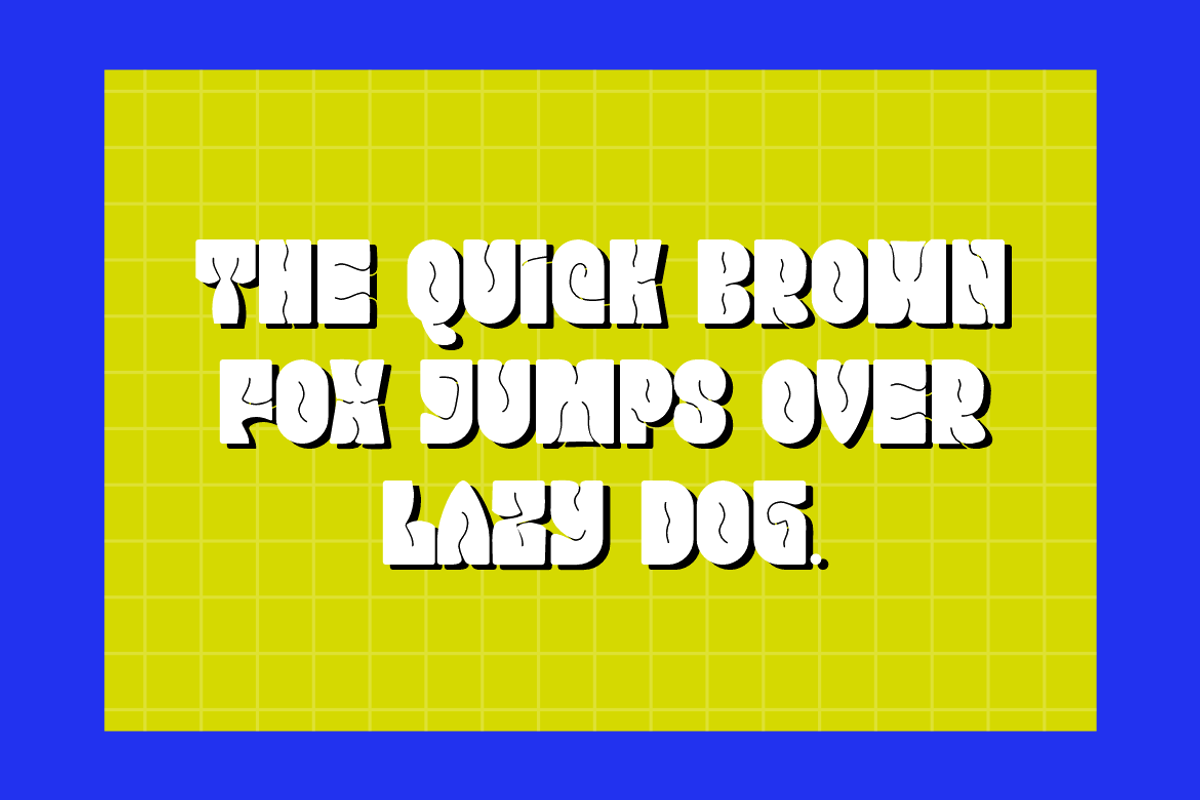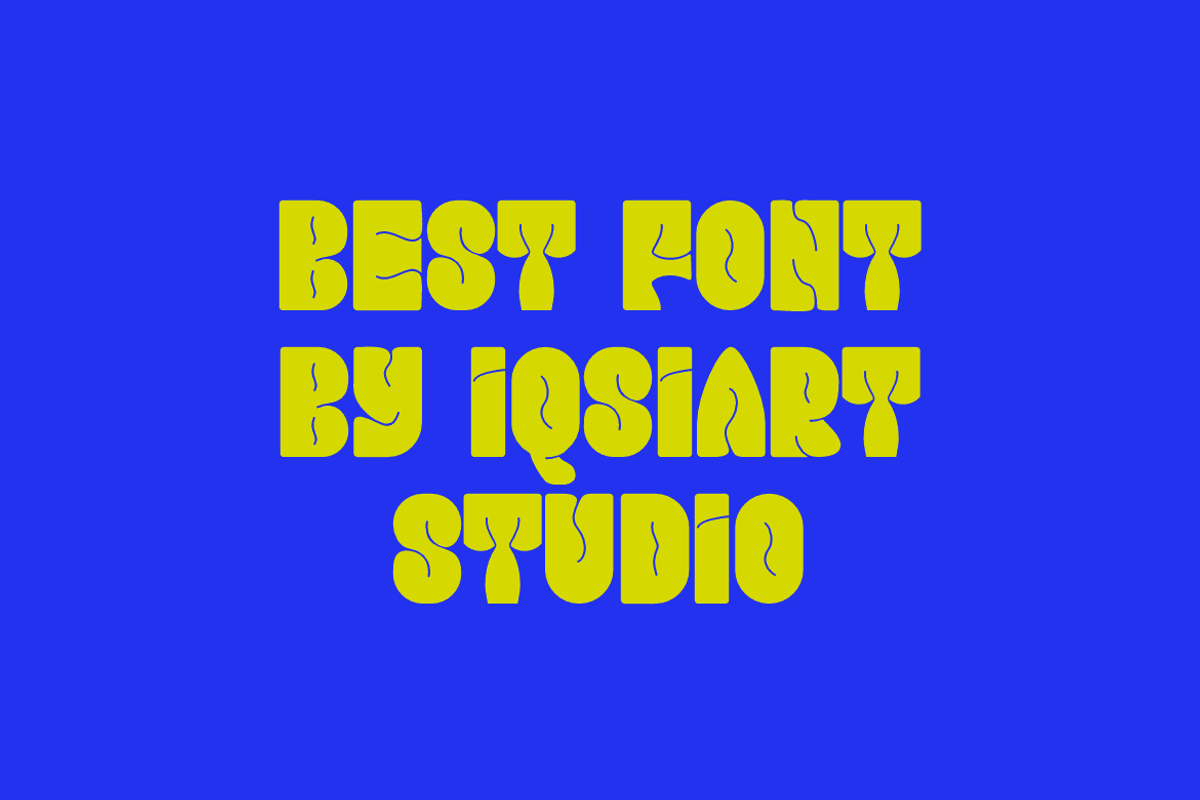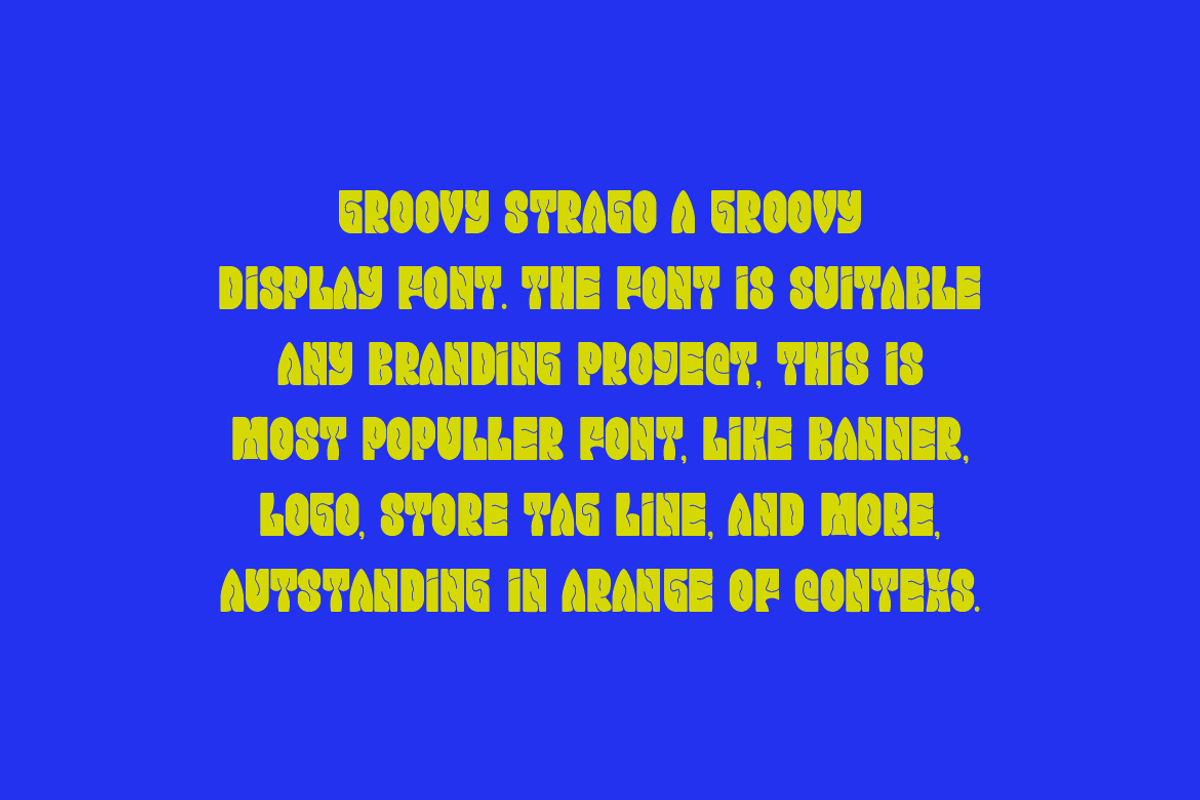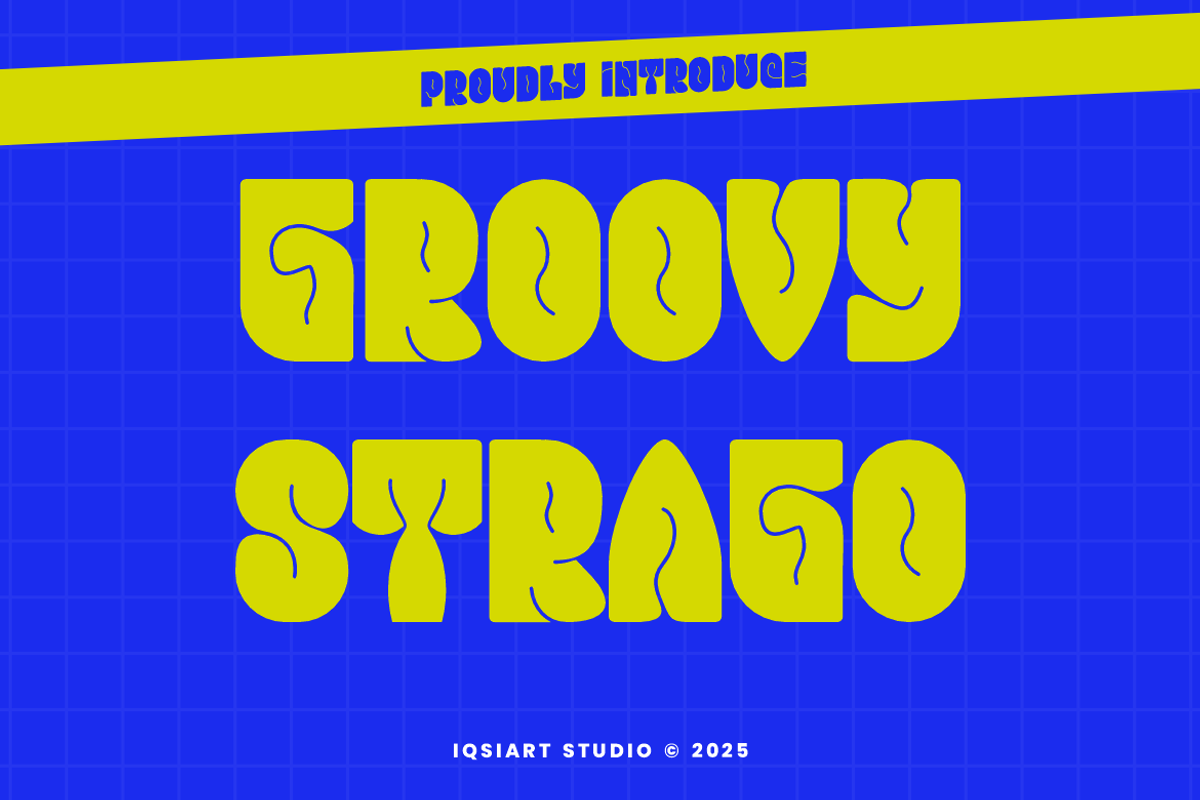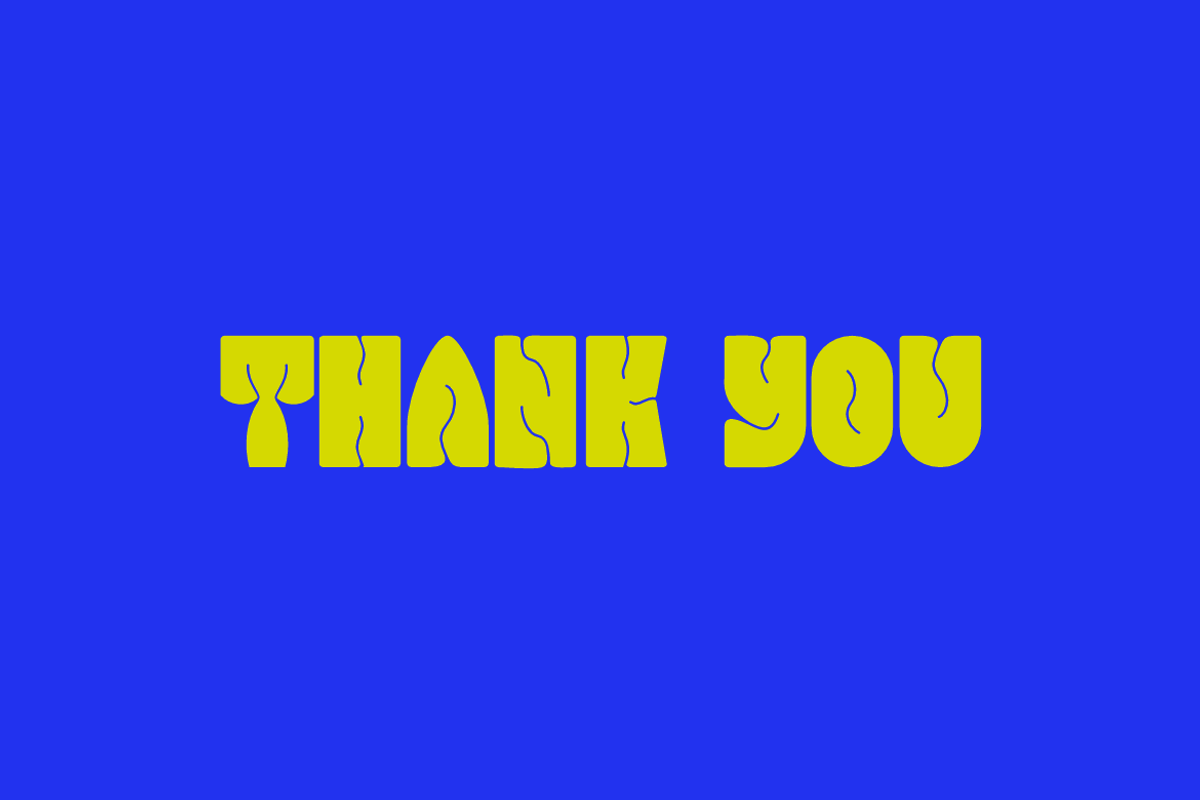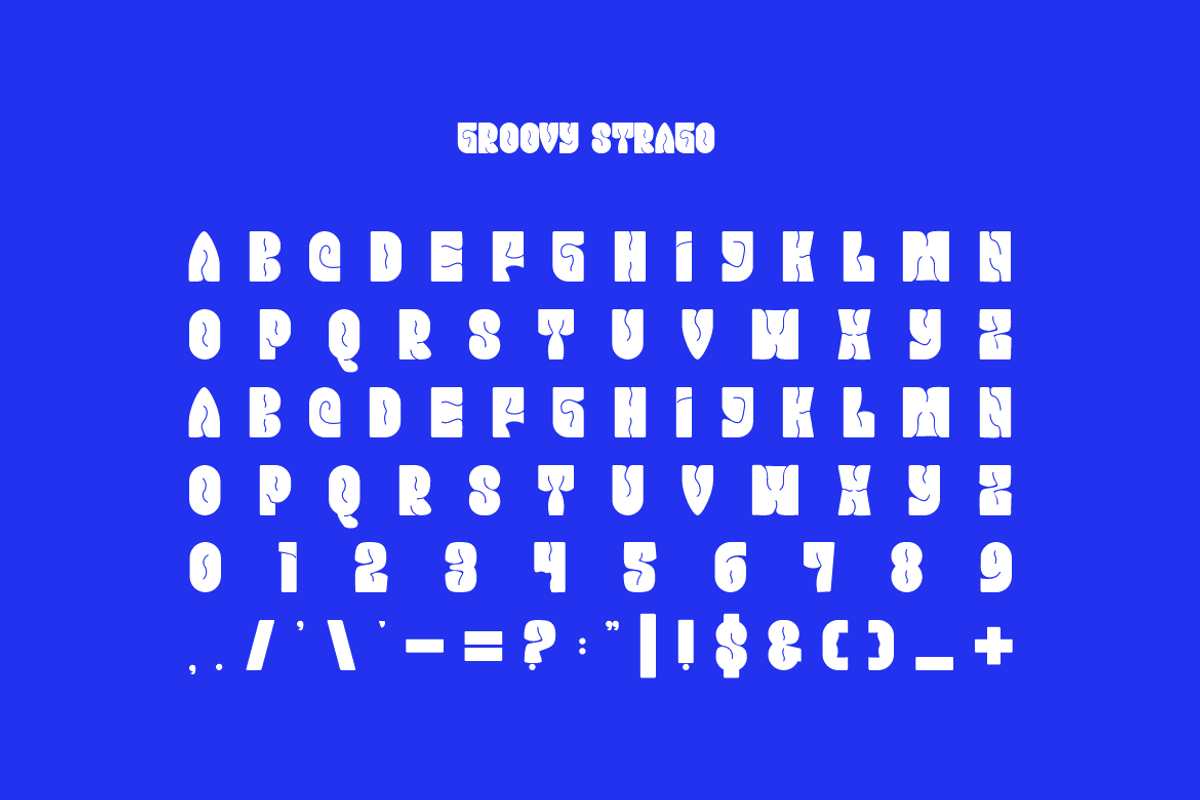
Groovy Strago - Typeface Font
Groovy Strago Font is a best and authentic display font. This font can be used for your various needs. We provide various themes and font styles. visit our profile to get a wide variety of themes and different font styles you need.